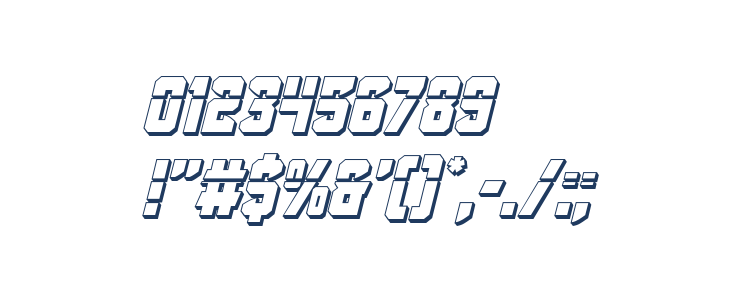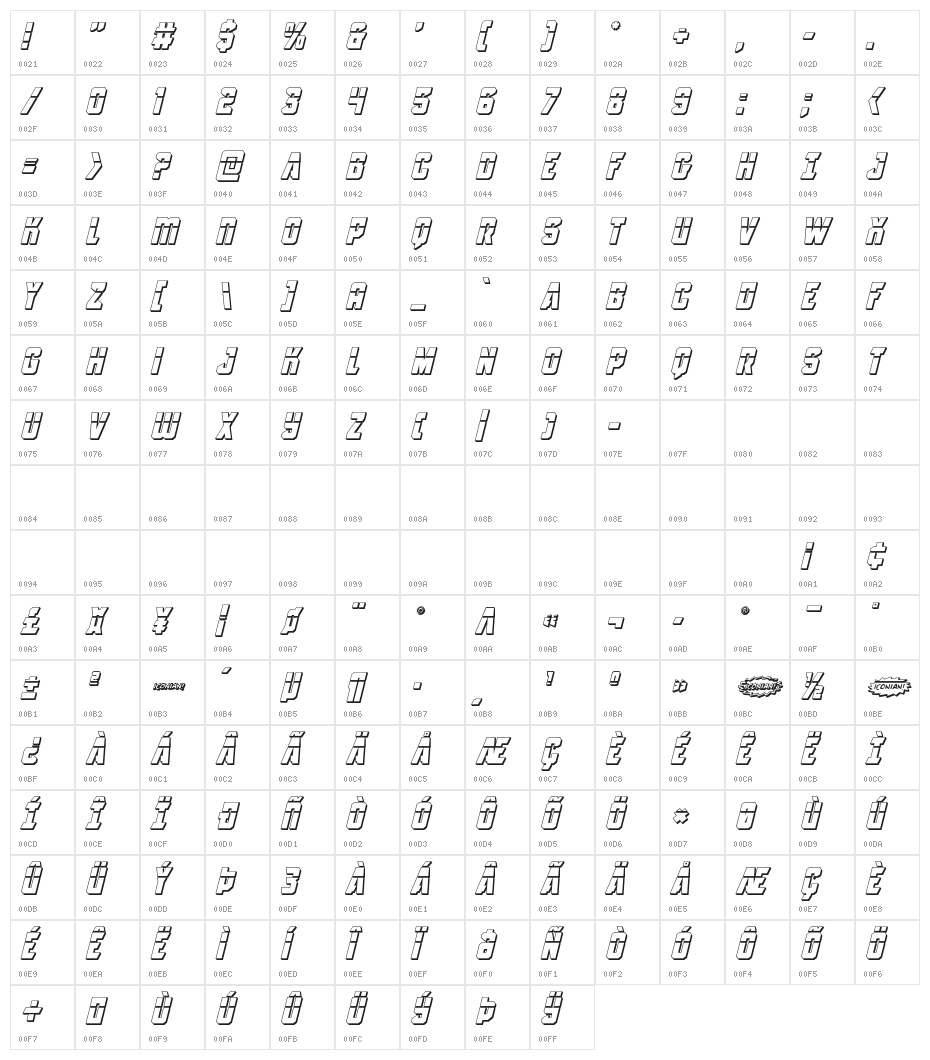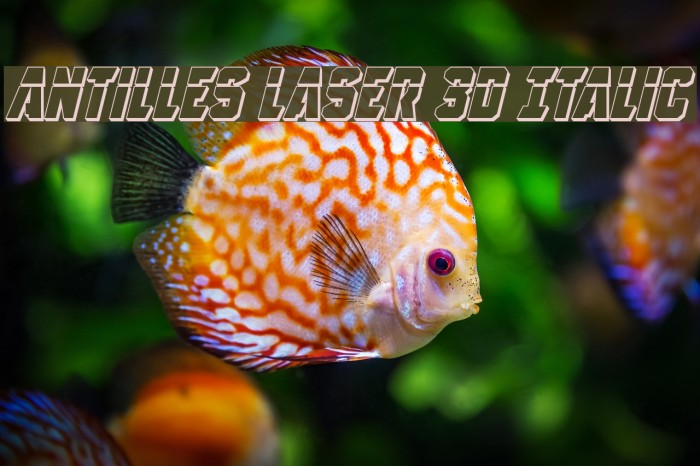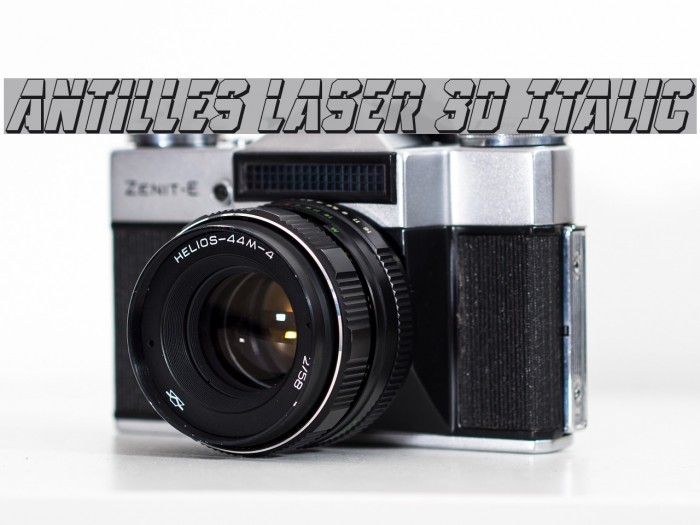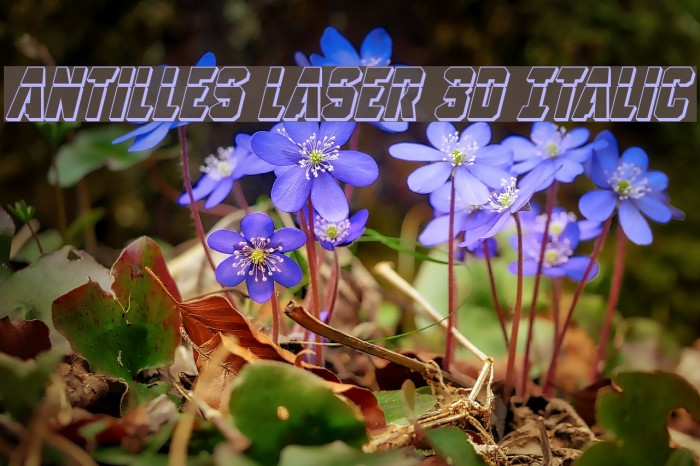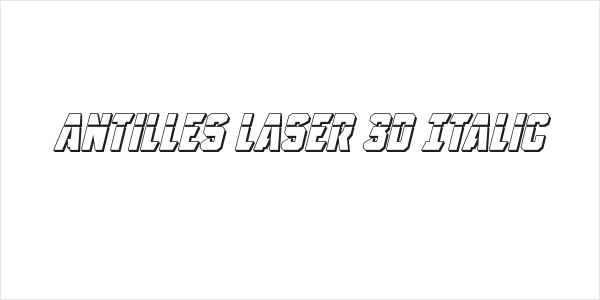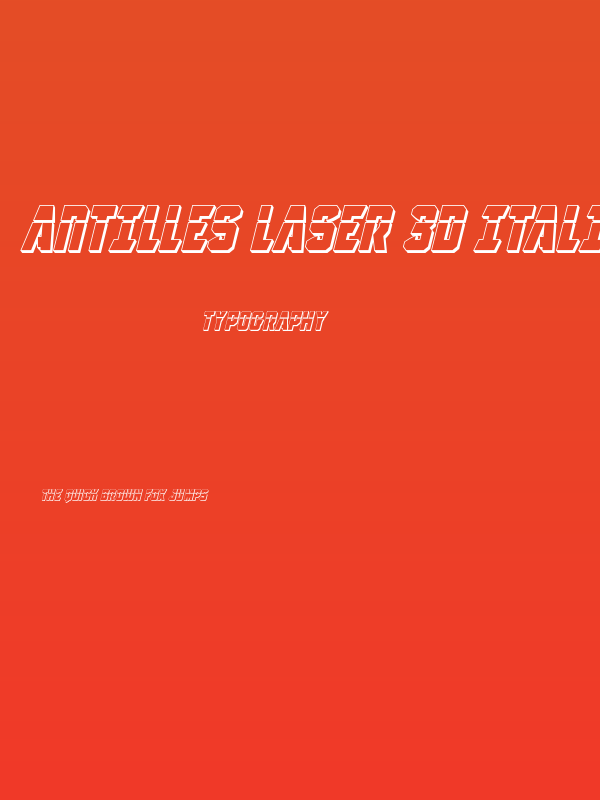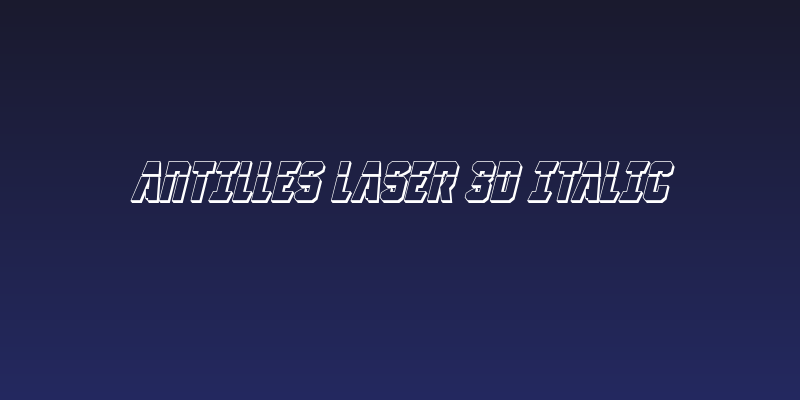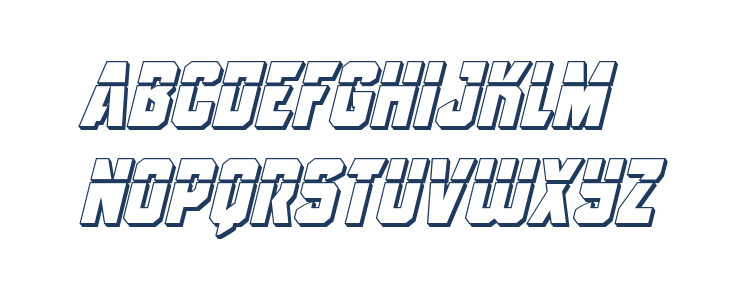
Antilles Laser 3D Italic Font
Antilles Laser 3D Italic Description
This font features a bold, three-dimensional design with a futuristic and dynamic appearance. The characters are italicized, giving them a forward-leaning stance that suggests movement and speed. Each letter is outlined, creating a shadow effect that enhances the 3D illusion. The font is highly stylized, with sharp angles and geometric shapes, making it ideal for attention-grabbing headlines or logos. The uppercase and lowercase letters maintain a consistent style, and the numerals and special characters are designed to match the overall aesthetic.
| Proposed Projects | Ideal for sci-fi themed projects, video game titles, tech company logos, or any design requiring a modern and energetic look. |